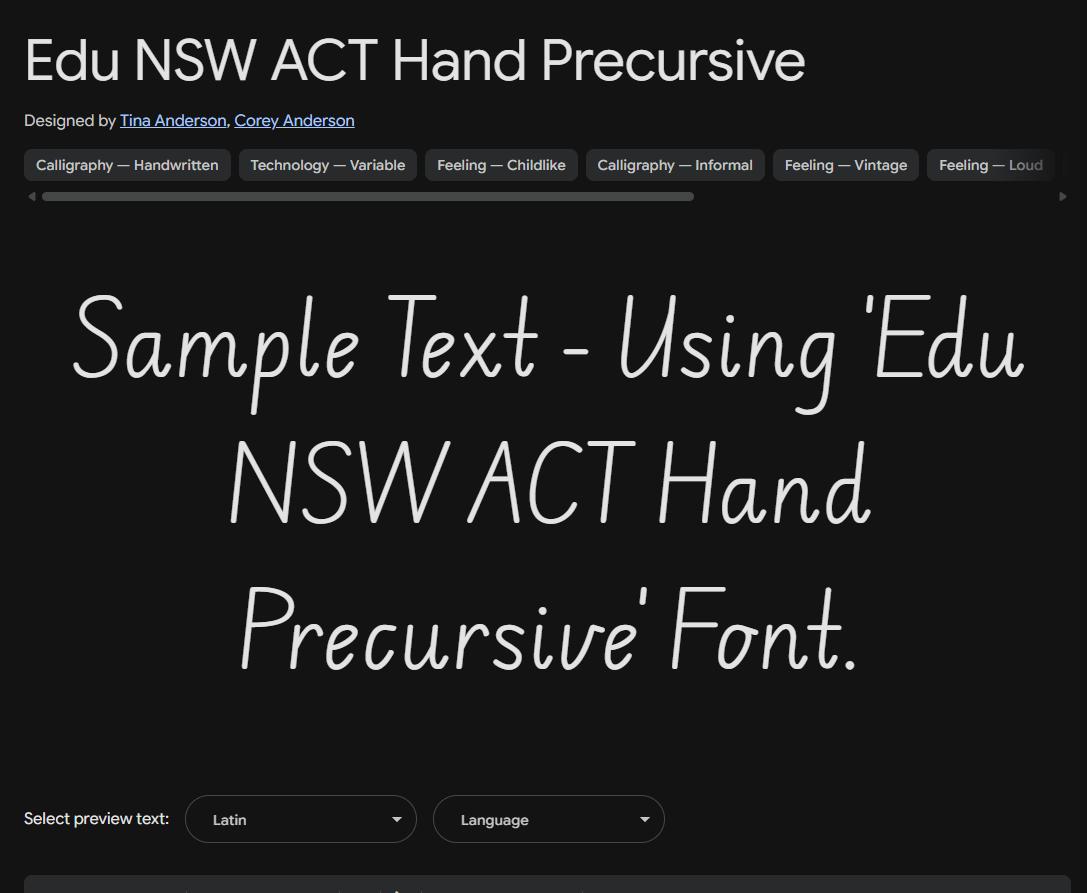
The Edu NSW ACT Hand Precursive typeface, meticulously architected by Tina Anderson and Corey Anderson, represents a specialized fusion of pedagogical standards and modern variable font technology. Designed to mirror the New South Wales and Australian Capital Territory Foundation Style, this digital specimen employs a single axis for weight modulation, allowing for fluid interpolation that maintains stroke integrity across diverse screen resolutions. By integrating the specific kinesis of precursive entry and exit strokes into a responsive OpenType framework, the font optimizes legibility and cognitive retention for early learners, providing a semantically rich typographic tool that bridges the gap between traditional manual script instruction and high-performance digital rendering.
The Edu NSW ACT Hand Precursive font family operates as a sophisticated typographic bridge between digital accessibility and pedagogical tradition, functioning as a high-performance variable font that utilizes modern OpenType axes to interpolate fluid weights and slants. This typeface captures an informal, handwritten calligraphy style that resonates with a vibrant, childlike innocence, yet its rugged, vintage undertones reflect the tactile authenticity of traditional classroom pencil exercises. By integrating an active and playful visual rhythm, the font projects a happy and loud aesthetic that transforms static educational materials into dynamic learning environments. This unique blend of technical precision and informal calligraphy ensures that each glyph maintains a playful energy, providing a semantically rich framework for early literacy while embodying the energetic, unrefined spirit of active student engagement.
The Edu NSW ACT Hand Precursive typeface, a variable font engineered by Tina and Corey Anderson to meet specific Australian pedagogical standards, is fundamentally unsuitable for high-stakes corporate legalities or precision engineering documentation due to its specialized precursive morphology designed for nascent literacy rather than rapid information processing. While its single-axis weight variability offers flexibility in educational materials, the font lacks the sophisticated glyph architecture, high stroke modulation, and robust kerning pairs required for the dense informational hierarchies found in financial prospectuses or pharmaceutical labeling. In these contexts, the typeface's inherent reliance on state-specific instructional shapes creates significant cognitive friction and fails to provide the optical sizing stability necessary for small-scale legibility, ultimately undermining the professional authority and aesthetic gravitas demanded by enterprise-level brand identity systems.
If you need a reliable alternative for the Edu NSW ACT Hand Precursive font family, Merriweather provides a sophisticated and clear design for any classroom resource. For a more playful and modern feel, Dongle serves as a fantastic secondary option that keeps your text approachable and easy to follow.
The Edu NSW ACT Hand Precursive font is designed primarily for early literacy instruction rather than dense paragraphs of body text. Its reliance on unjoined cursive loops can increase cognitive load during long-form reading, making it technically less efficient than high-readability sans-serifs for extended body blocks.
This font family works exceptionally well for digital classroom headers because its clear, familiar letterforms provide immediate visual cues for students. Utilizing its distinct terminal strokes at larger display sizes leverages the font's high stroke-to-width ratio, ensuring superior visibility on high-resolution interactive whiteboards.
The Precursive style introduces entry and exit strokes on characters to prepare students for eventual cursive joining, whereas the Foundation style uses simpler, isolated prints. Technically, the Precursive variant modifies the baseline lead-ins to facilitate kinetic flow, whereas Foundation remains static to prioritize individual grapheme recognition.
While the font includes standard arithmetic operators, it is not specifically engineered with a full set of advanced mathematical glyphs or complex symbols. The character set mapping lacks the OpenType features necessary for complex fractional rendering or the subscript/superscript alignment required for secondary-level STEM documentation.
Pairing this font with a clean, geometric sans-serif like Arial or Open Sans provides a structured contrast that separates instructional prompts from student practice areas. Design hierarchy is best maintained when the primary font handles pedagogical content, while a secondary typeface with a larger kerning table manages administrative metadata.
Legibility decreases significantly at small sizes on mobile screens due to the intricate details of the precursive loops and thin stroke weights. The font's low x-height relative to its ascenders causes character collisions at sub-12pt rendering, which compromises optical clarity on low-DPI mobile displays.
You can apply bold or italic styles, though the font is natively designed as a single-weight family to mirror natural handwriting. Artificial obliquing or weight thickening through CSS can distort the specific ductus-the direction and sequence of strokes-which is critical for the font's pedagogical accuracy.
The moderate x-height of Edu NSW ACT Hand necessitates generous line spacing to prevent the long ascenders and descenders from overlapping. From a technical typesetting perspective, setting a leading value of at least 1.5 is essential to accommodate the font's vertical metrics and ensure vertical rhythm on primary-level worksheets.
This font is generally not recommended for high-contrast accessibility designs because its decorative entry strokes can create visual noise for users with visual impairments. WCAG guidelines prioritize stroke consistency, and the varying thickness in precursive letterforms can fail to meet minimum contrast ratios for stroke-to-background legibility.
Using the font for educational branding outside of Australia is possible, though it may feel stylistically inconsistent with regional handwriting standards like D'Nealian or Zaner-Bloser. Global adoption is limited by its specific regional glyph variations, such as the distinct formation of the lowercase 'k', which might confuse learners accustomed to different orthographic conventions.